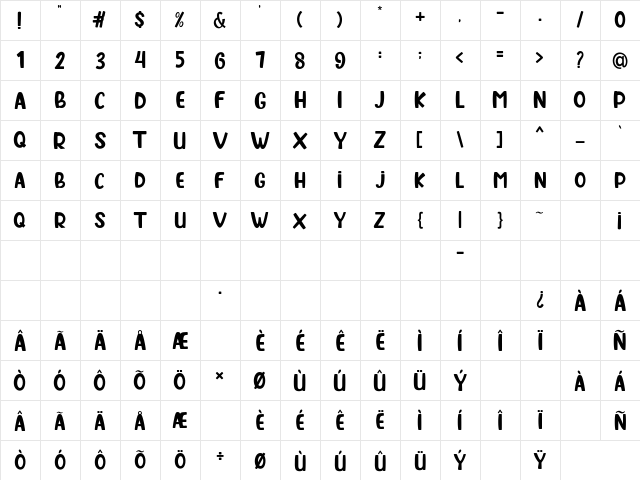
Hallo Bernad Regular
| Foundry | Graphicxell |
| Designer | Usman Al Baehaqi |
Design Context for Hallo Bernad Typeface
Hallo Bernad is a composed and adaptable typeface that performs quietly and consistently across a wide range of design contexts.